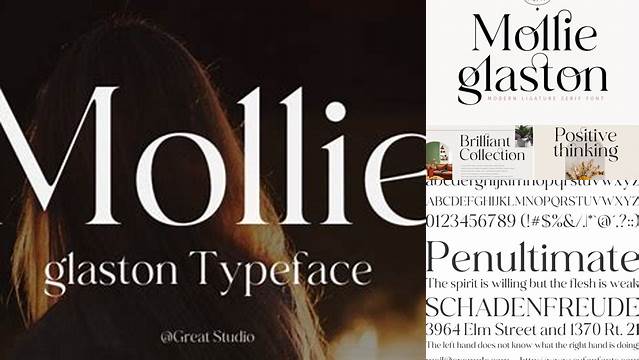
Mollie Glaston Bold Font: Free Download Guide & Uses
Mollie Glaston Bold Font: Your Guide to Free Download and Creative Uses
Hey guys, if you're on the hunt for a font that screams personality and makes your designs pop, then you've probably stumbled upon Mollie Glaston Bold. This font is a real game-changer, and the best part? You can often find it available for free download! In this article, we're going to dive deep into everything you need to know about Mollie Glaston Bold. We'll cover where to get it, how to use it, and why it's such a fantastic choice for various design projects. So, buckle up, and let's get started!
What Makes Mollie Glaston Bold so Special?
Okay, first things first, what makes Mollie Glaston Bold stand out from the crowd? Well, it's all about that bold presence! This font is designed to grab attention. Its thick strokes and confident curves make it perfect for headlines, titles, and any text that needs to make a statement. But it's not just about being loud; Mollie Glaston Bold also has a touch of elegance. It walks that fine line between being playful and professional, making it incredibly versatile. This means you can use it for a wide range of projects, from website design to social media graphics, and even print materials like posters and brochures. The legibility is another key feature. Despite its bold style, Mollie Glaston Bold is surprisingly easy to read. This is super important when you're using it for display text. You want your audience to quickly understand your message. This font ensures that your words are not only seen but also easily understood. It’s a favorite among designers, and for good reason. Its unique blend of strength and style makes it a must-have in any font library. Trust me, once you start using it, you'll understand why it’s so popular! You'll find yourself reaching for it again and again. And let's not forget the ease of access. The fact that you can often find Mollie Glaston Bold available for free download is a massive bonus. It makes this amazing font accessible to everyone, regardless of budget. This opens up so many creative possibilities for both seasoned designers and those just starting out. Whether you're creating a logo, designing a website header, or crafting social media content, Mollie Glaston Bold can elevate your designs. It's a powerful tool that can help you create visually stunning and impactful projects.
Using Mollie Glaston Bold in Your Designs: Tips and Tricks
So, you've got your hands on Mollie Glaston Bold – awesome! Now, let's talk about how to make the most of it in your designs. This font is super versatile, but here are a few tips and tricks to help you get started:
- Headlines and Titles: Mollie Glaston Bold is a natural fit for headlines and titles. Its strong presence is perfect for grabbing attention and making a statement. Use it for website headers, social media posts, or print materials where you want to highlight important information. Make sure the font size is large enough to be easily readable. Play around with different sizes to find the perfect balance for your design. Consider pairing it with a complementary font for body text to create a cohesive look. This will help your design feel balanced and professional. Remember, the headline is the first thing people see, so make it count!
- Logos: This font can also work great in logos. Its bold and distinctive style can create a memorable brand identity. Keep in mind that logos should be simple and recognizable. Consider using Mollie Glaston Bold for the main text of your logo, then pairing it with a simple icon or graphic. Make sure the logo is easily scalable to different sizes without losing its impact. Before finalizing your logo, test it in various contexts (website, business cards, etc.) to ensure it works well everywhere. Don't overcomplicate it – less is often more when it comes to logo design.
- Social Media Graphics: Social media is all about visual appeal, and Mollie Glaston Bold is a great choice for creating eye-catching graphics. Use it for quotes, announcements, or promotional text. Experiment with different colors and backgrounds to see what works best for your brand. Ensure the text is easy to read on a small screen. Consider using a drop shadow or outline to make the text pop against the background. Keep the design clean and uncluttered, so the message is clear and concise. Social media is fast-paced, so make sure your graphics grab attention quickly.
Final Thoughts: Unleash Your Creativity with Mollie Glaston Bold
There you have it, guys! Mollie Glaston Bold is a fantastic font that can add a touch of boldness and personality to your designs. It's easily accessible, often available for free download, and super versatile. Whether you're a seasoned designer or just starting, Mollie Glaston Bold is a must-have font in your arsenal. So go ahead, download it, and start creating stunning designs today! Remember to always check the licensing terms and download from reputable sources. Have fun, experiment, and let your creativity flow! This font is your secret weapon to creating visually appealing and impactful projects. Happy designing!